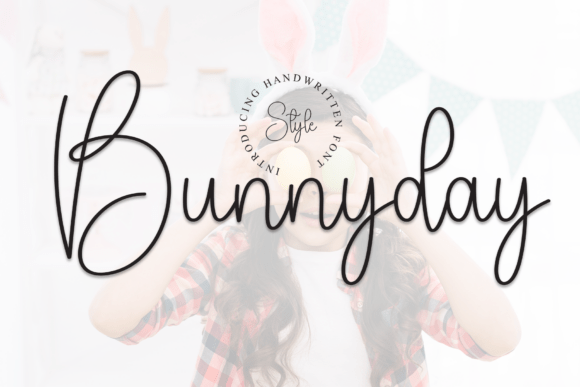
The Bunnyday Font: A Sweet Addition to Your Design Arsenal
I’ll never forget the time I was working on a wedding invitation project, and my client asked for a font that would make their special day feel like a whimsical fairy tale. I scoured the internet, tried out dozens of fonts, but nothing seemed quite right. That was until I stumbled upon the Bunnyday Font – a charming, handwritten display font that instantly captured the playful, romantic essence of the occasion. In this article, I’ll share my love for this delightful font, its features, and how to make the most of it in your designs.
A Personal Review: What I Love About Bunnyday Font
So, what makes Bunnyday Font so special? Here are a few things that I absolutely adore:
- ✨ Sweet and playful vibe: This font exudes warmth and friendliness, making it perfect for projects that require a lighthearted touch.
- ✅ Highly legible: Despite its playful nature, Bunnyday Font remains clear and easy to read, even at smaller sizes.
- 💕 Emotional connection: The font’s whimsical curves and lines evoke a sense of joy and happiness, making it ideal for projects that aim to create an emotional connection with the audience.
While Bunnyday Font is a delightful addition to any design project, there are a few minor quirks to be aware of:
- 🤔 Limited use in formal contexts: Due to its playful nature, Bunnyday Font might not be the best choice for formal or corporate projects.
- ⚠️ Kerning issues: As with any font, some users have reported kerning issues when using Bunnyday Font at very small sizes or in certain software.
- Explore stylistic alternates and glyphs to add more variety to your text.
The Designer Inspiration Behind Bunnyday Font
While the true story behind Bunnyday Font’s creation might be unknown, it’s easy to imagine that the designer was inspired by the joy and playfulness of childhood. Perhaps they wanted to bottle up the magic of a whimsical world, where laughter and happiness reign supreme. Whatever the inspiration, Bunnyday Font is a delightful addition to any design project.
| What type of projects is Bunnyday Font best suited for? | Bunnyday Font is perfect for creative projects that require a playful, lighthearted touch, such as wedding invitations, greeting cards, and social media graphics. |
| Is Bunnyday Font suitable for body text? | While Bunnyday Font is highly legible, it’s best used as a display font or for short paragraphs of text. For longer blocks of text, a more traditional font might be more suitable. |
| Is Bunnyday Font available in different weights or styles? | Currently, Bunnyday Font is available in a single weight, but its versatility and range of OpenType features make it suitable for a wide range of design applications. |